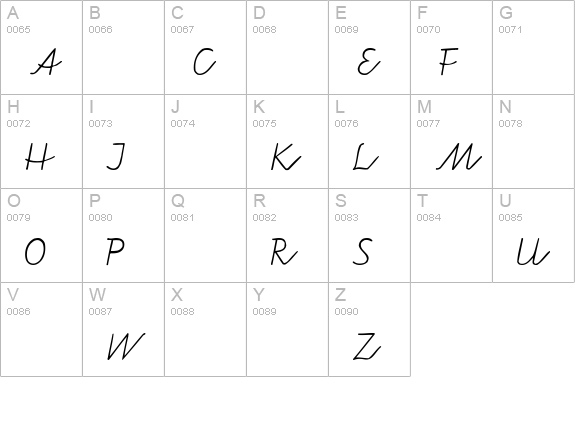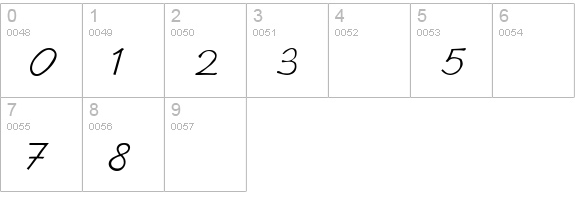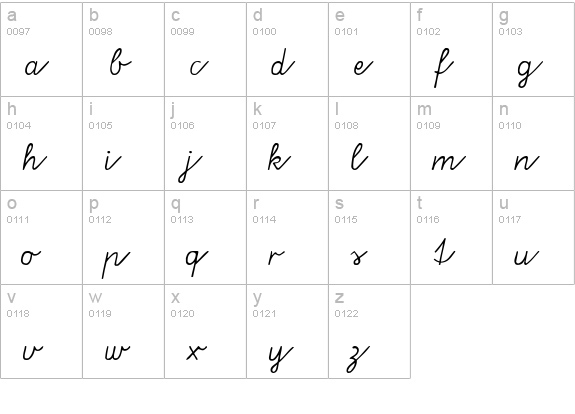
Veraus Font Details
Introducing Veraus, a stunningly elegant and versatile font that is sure to captivate your audience. With its timeless appeal and sophisticated design, Veraus effortlessly blends classic charm with modern flair. This font's exquisite letterforms exude a sense of refinement and grace, making it the perfect choice for any project that demands a touch of elegance. But what sets Veraus apart from the rest? Not only does it possess an undeniable visual appeal, but it also offers the incredible advantage of being free. Yes, you read that right! Veraus is freely available to download at FontsMarket.com, allowing you to elevate your designs without breaking the bank. Whether you're designing a logo, creating a wedding invitation, or crafting a professional presentation, Veraus will undoubtedly make a lasting impression. Its clean lines and balanced proportions lend themselves to a wide range of applications, making it a versatile choice for both print and digital projects. With its extensive character set, Veraus supports multiple languages, ensuring that your message can be effectively communicated across various cultures and regions. Its legibility remains unparalleled, even at smaller sizes, guaranteeing that every detail of your design will be flawlessly showcased. So, why wait? Embrace the beauty and versatility of Veraus today and elevate your design projects to new heights. Download this remarkable font for free at FontsMarket.com and unleash your creative potential.